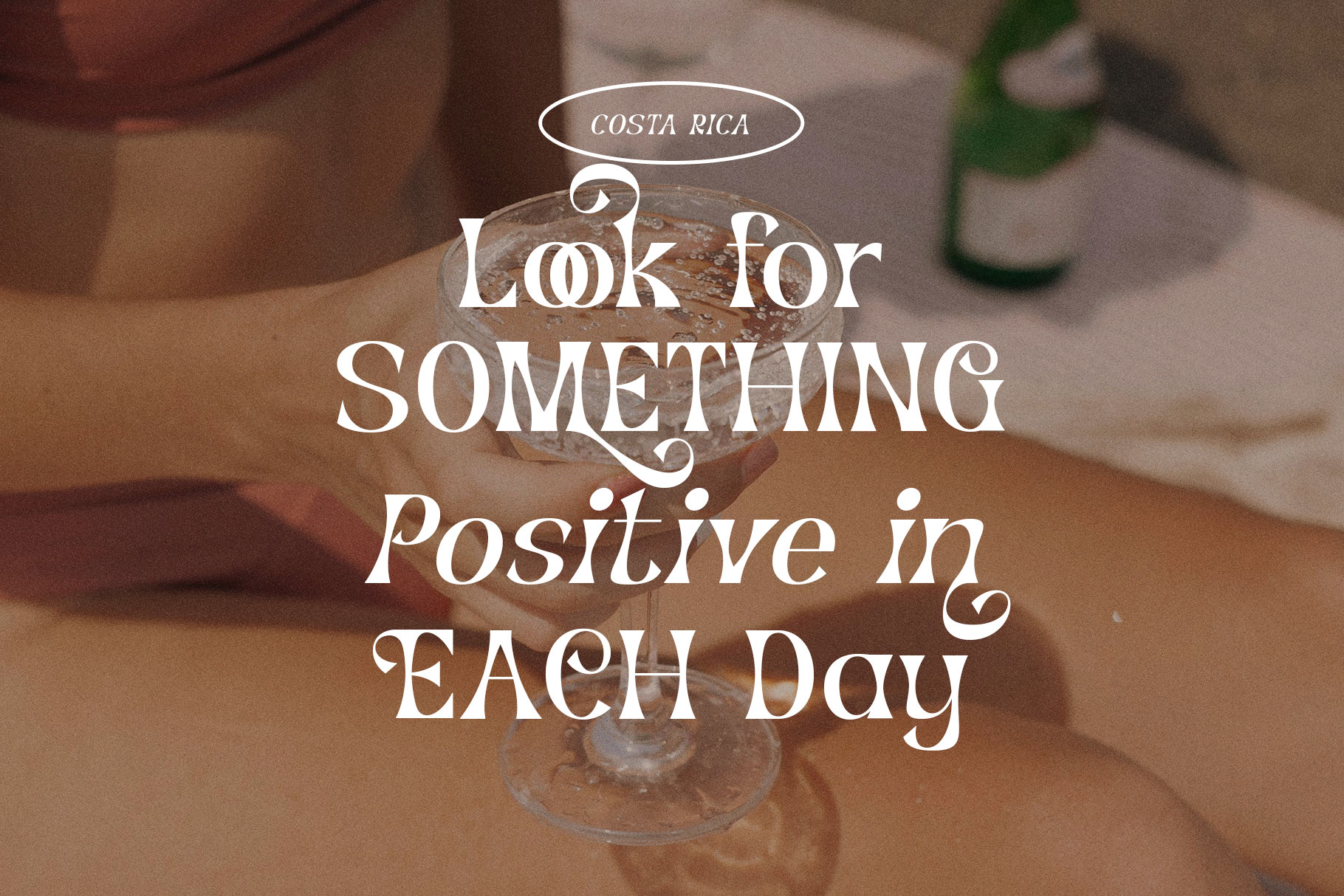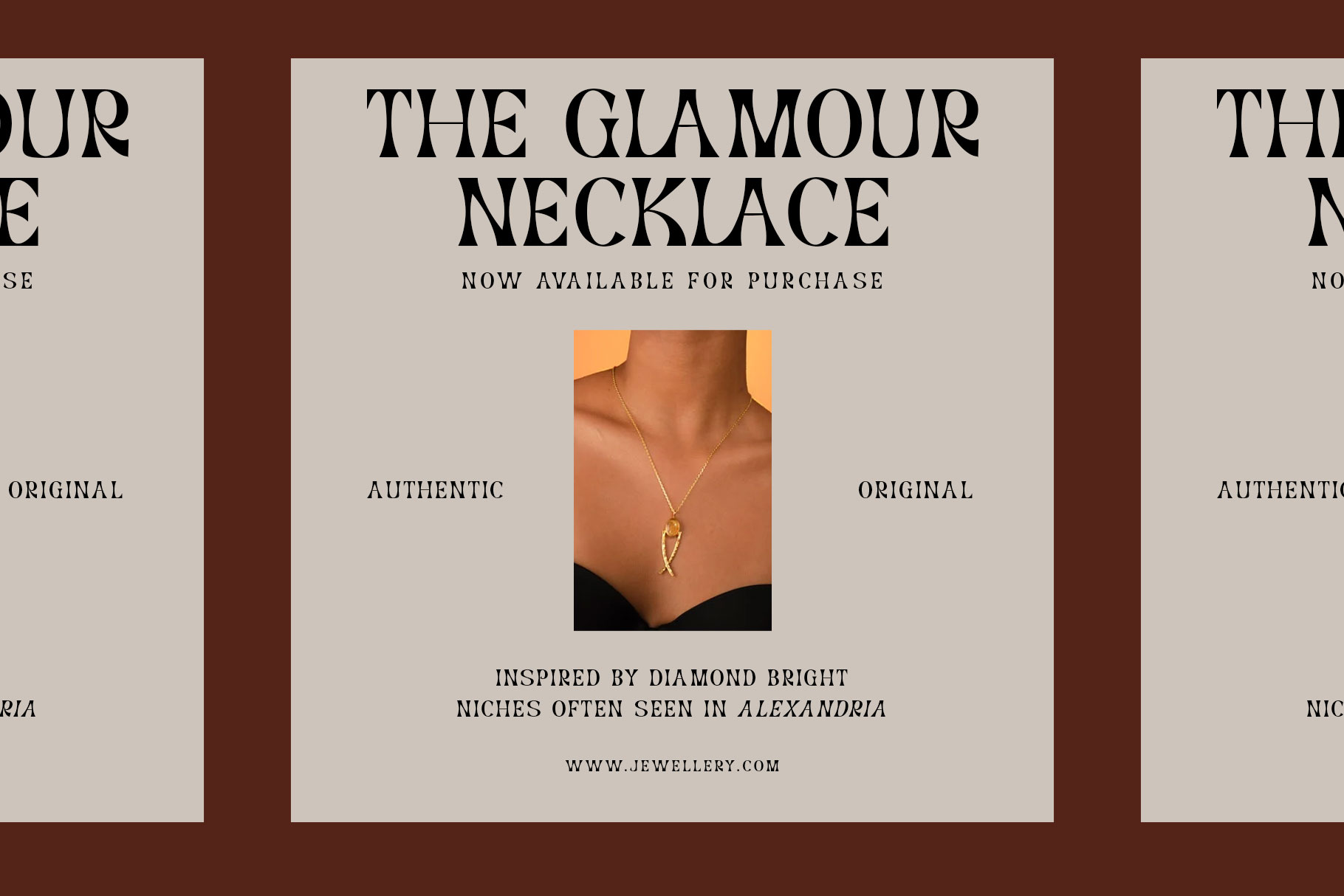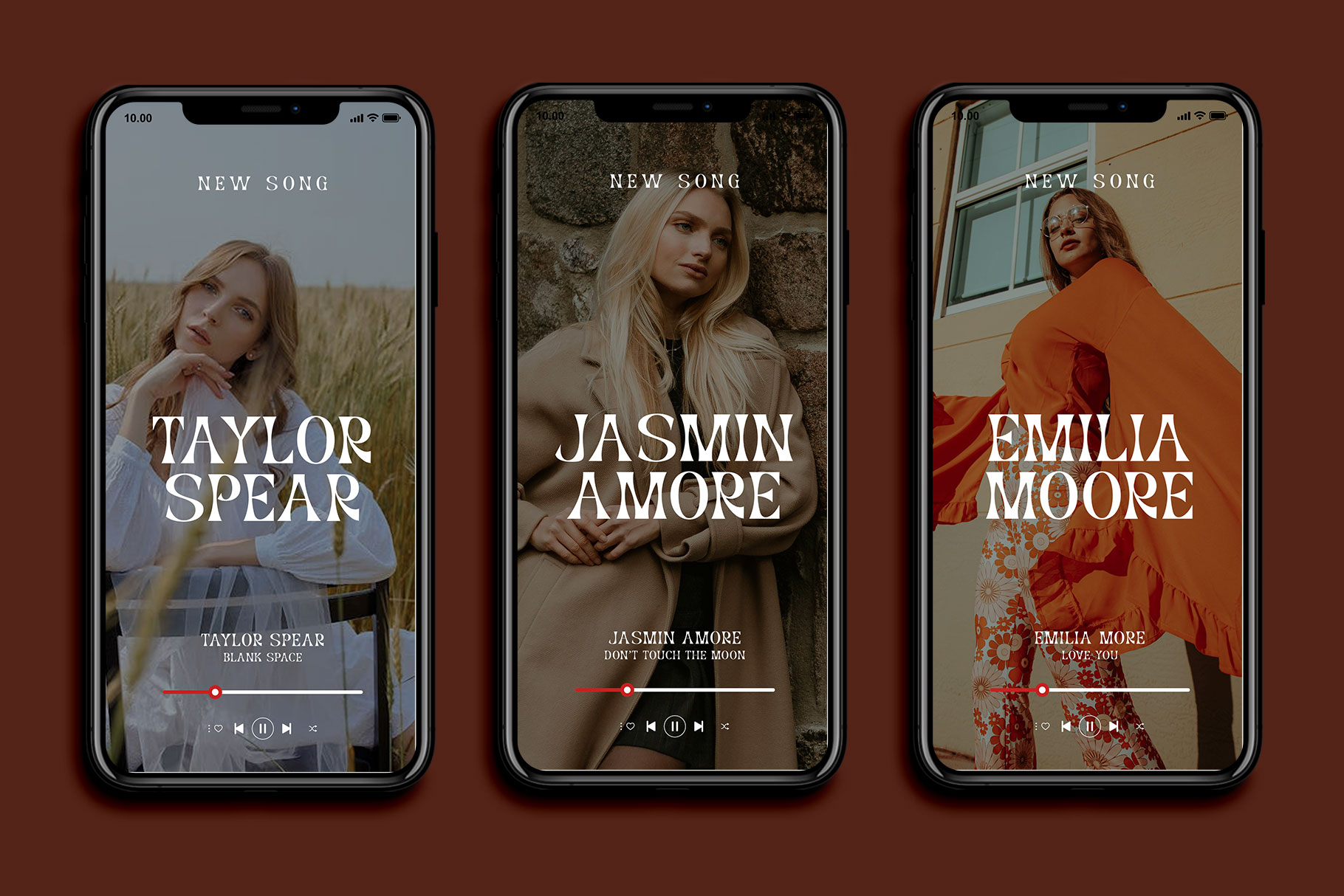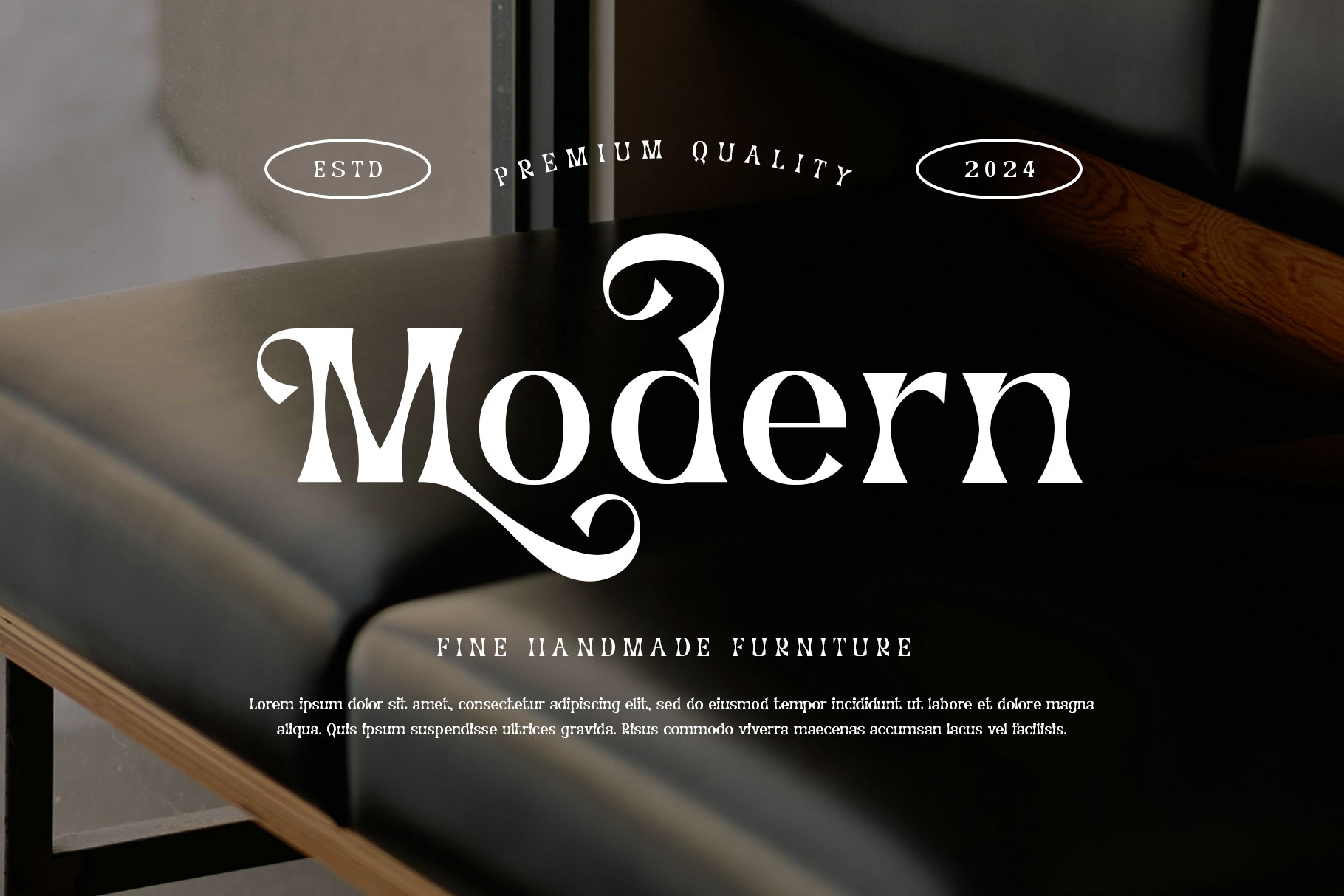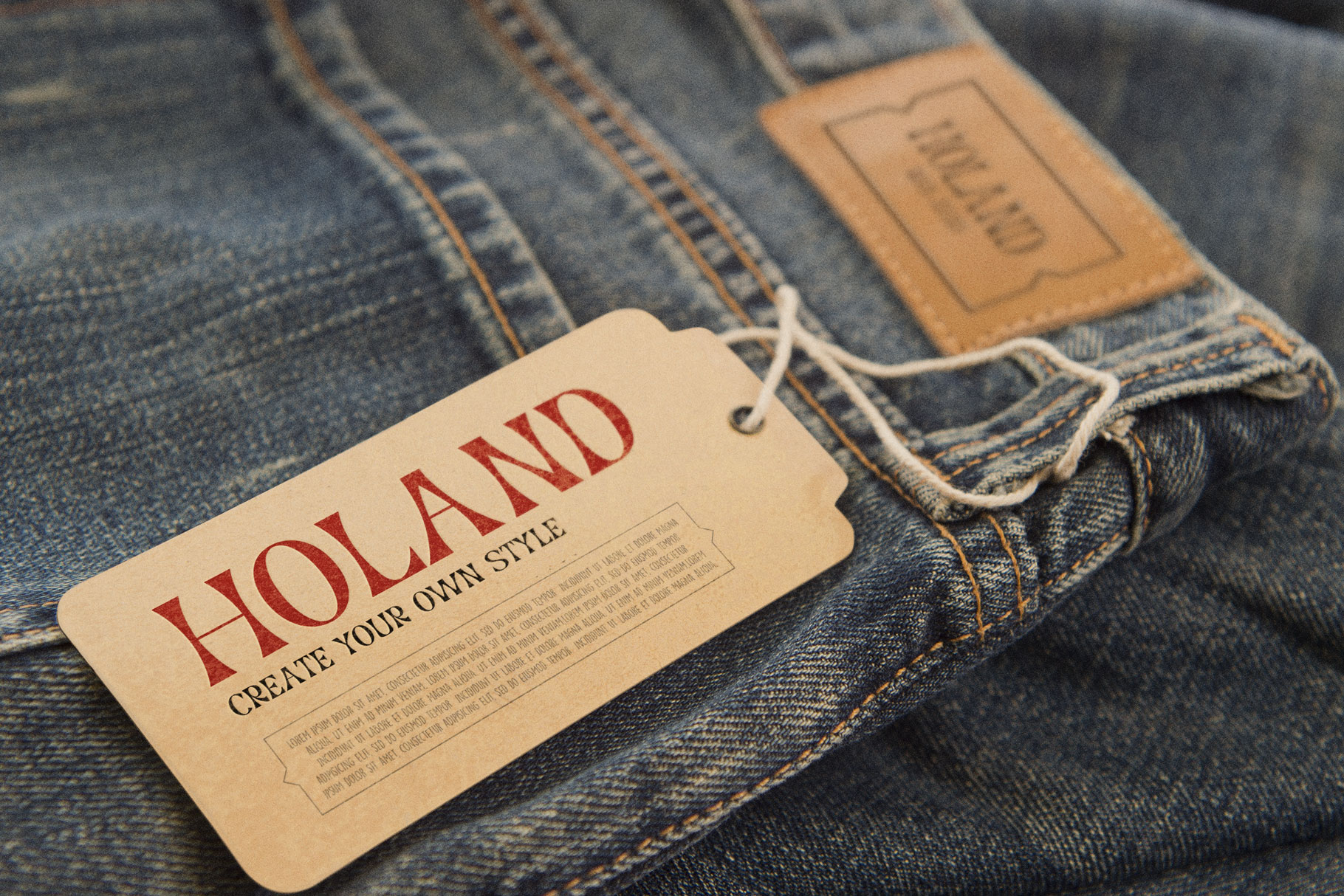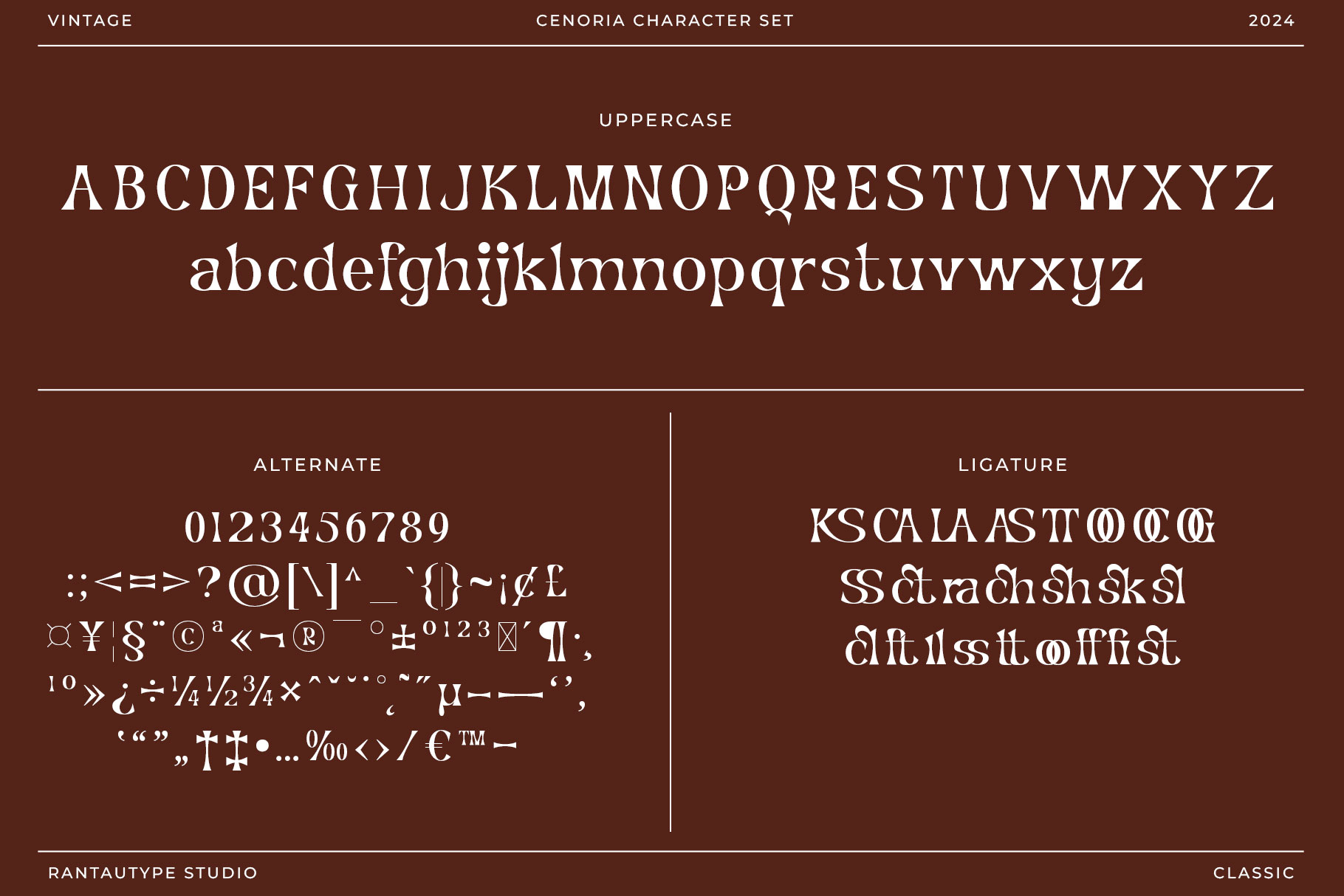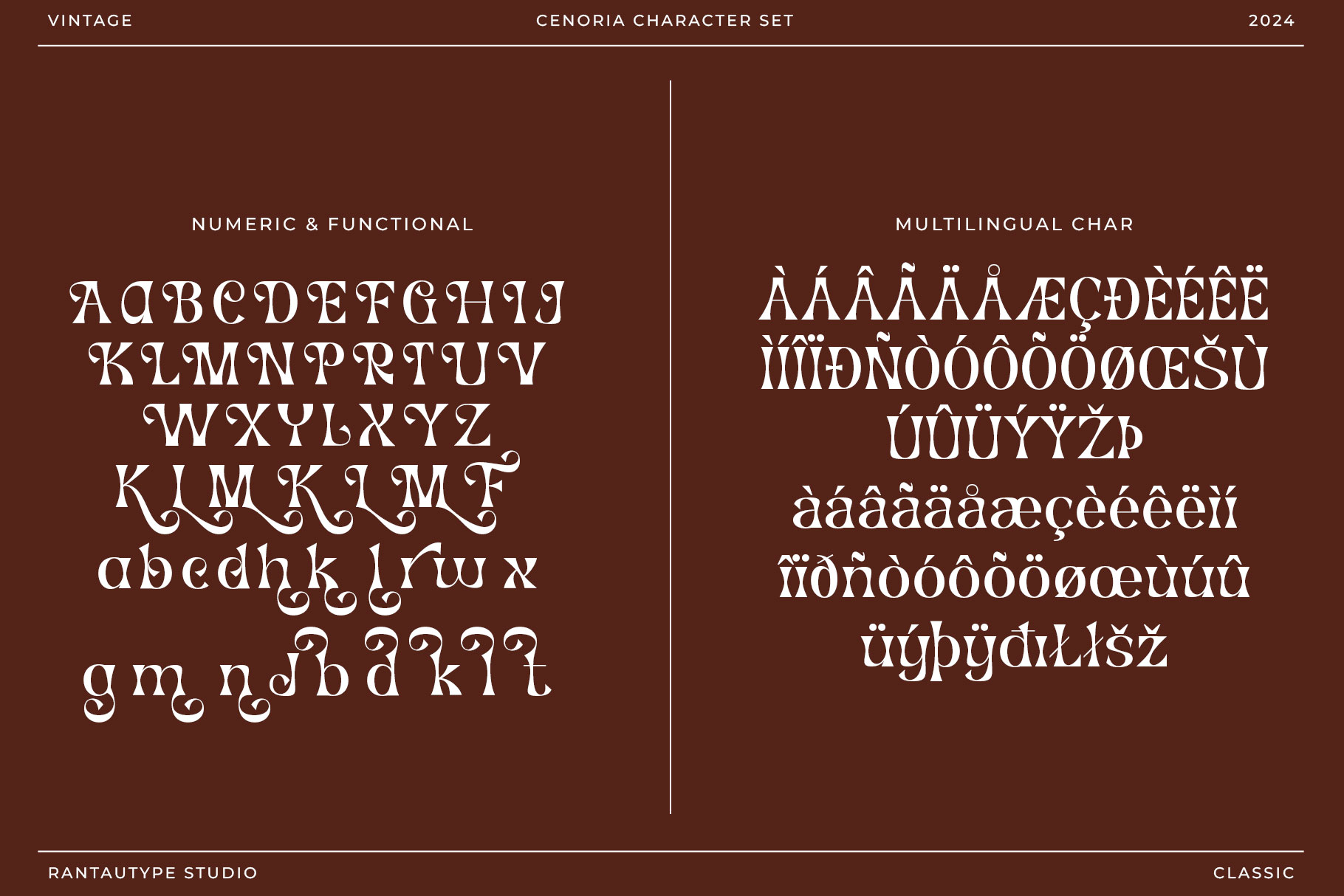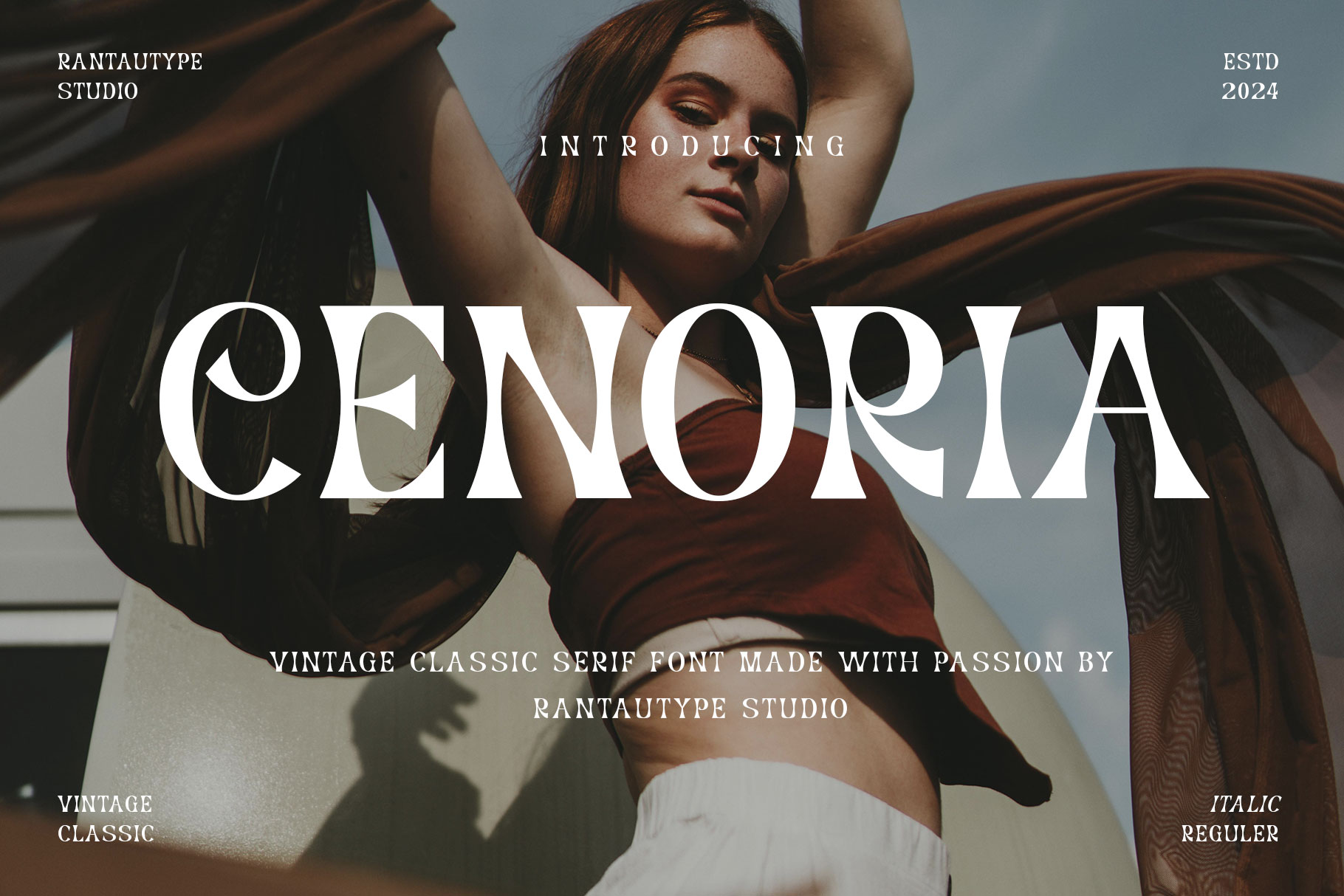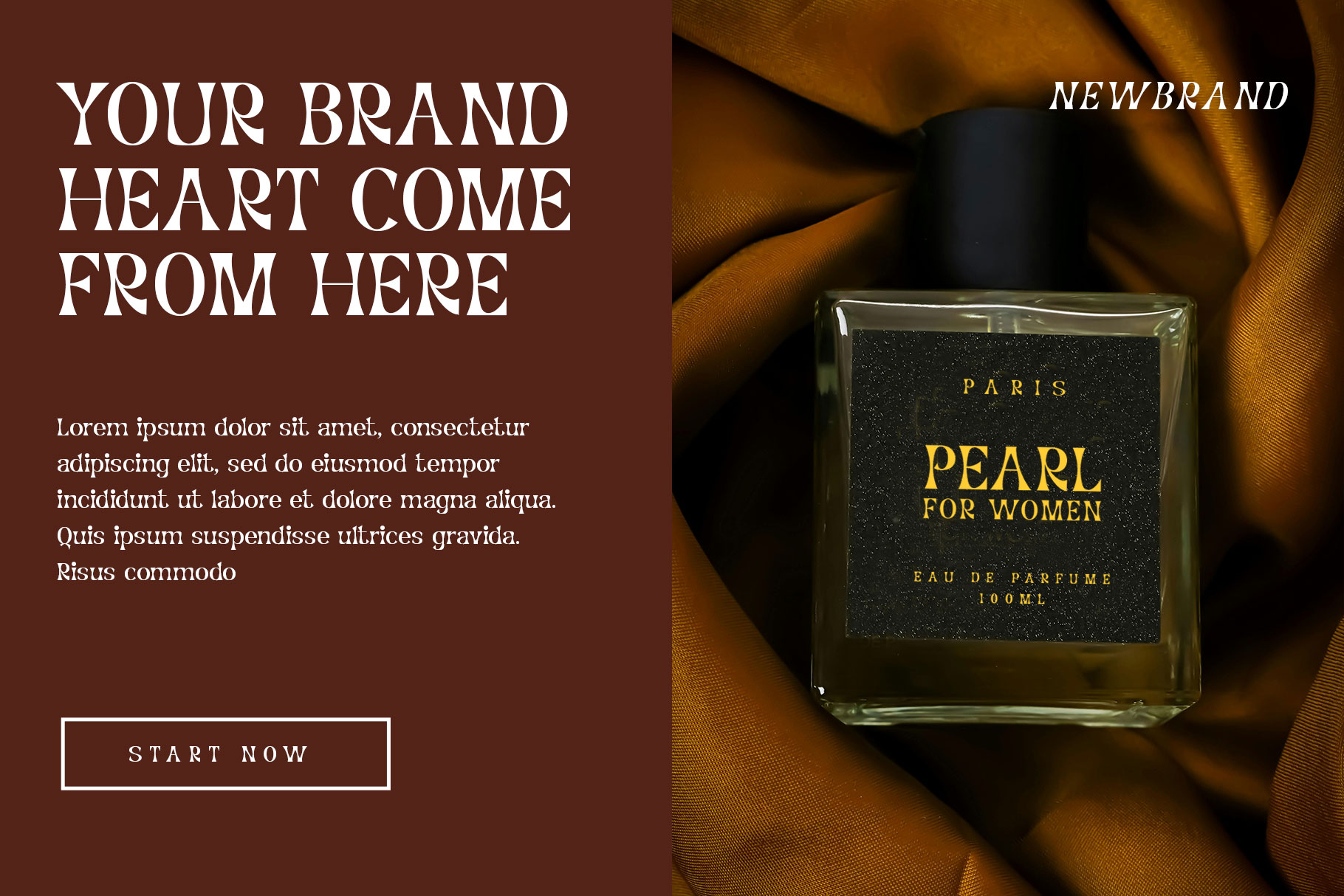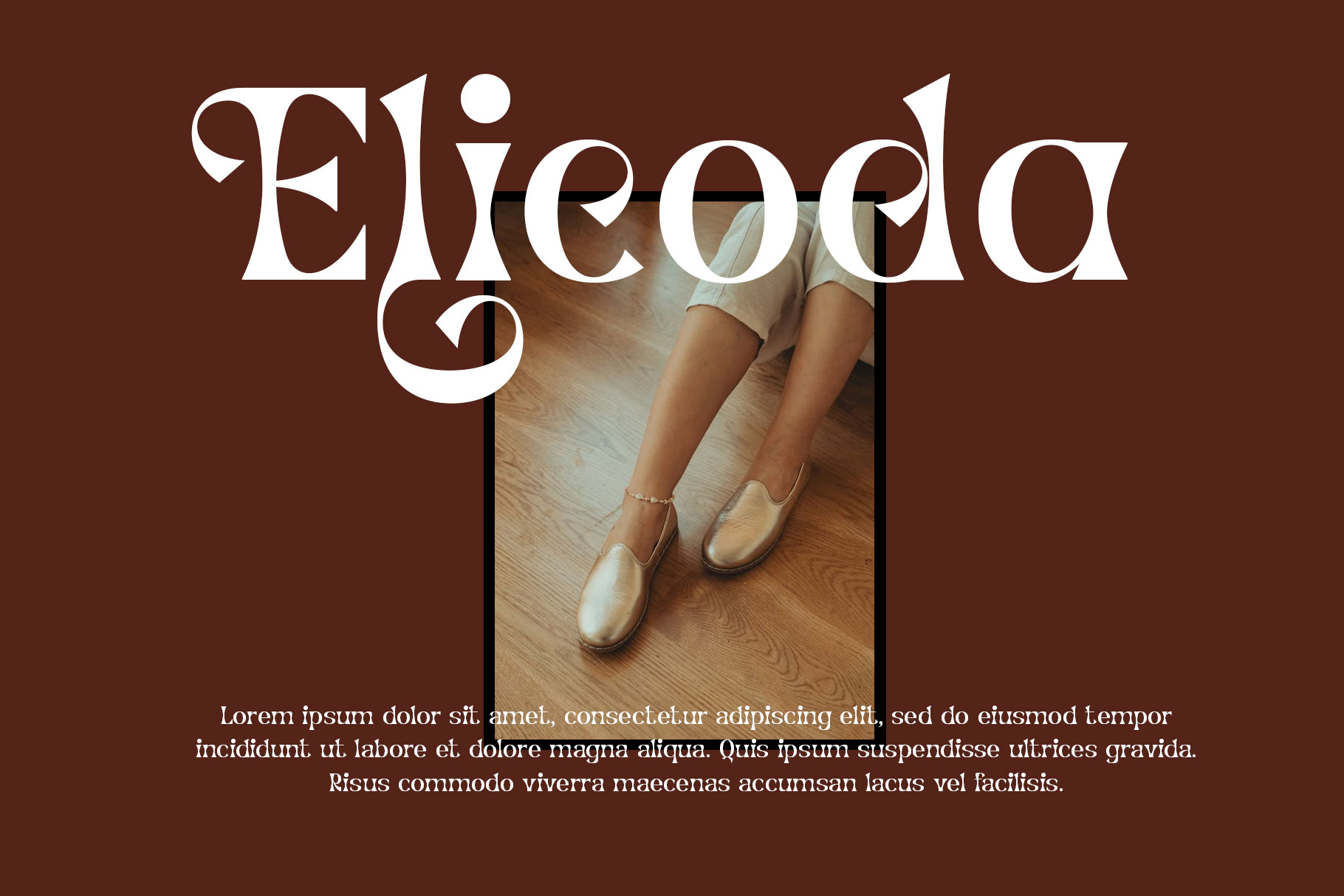
Cenoria Vintage Classic Font
Cenoria is classic vintage font with contras sharp and aesthetic shape captures the essence of the old-fashioned. Cenoria is a perfectly choice for any creative endeavor, chic, lifestyle design such as logos, advertisements, stationery, branding project, display and magazine, invitation, corporate brand, product design, label, business project and many other project with vintage nostalgic touch.